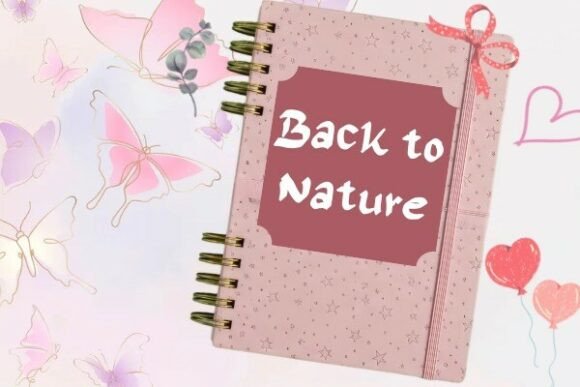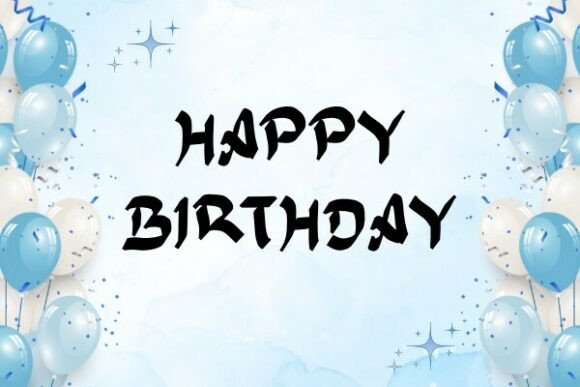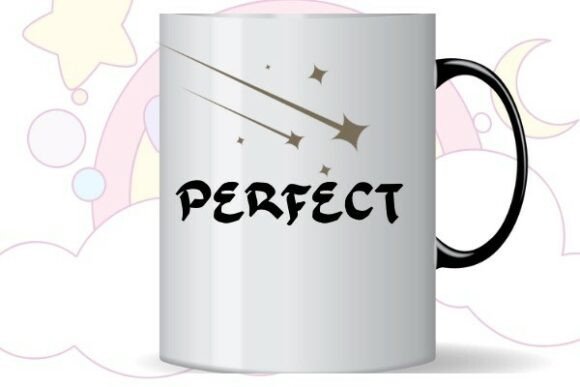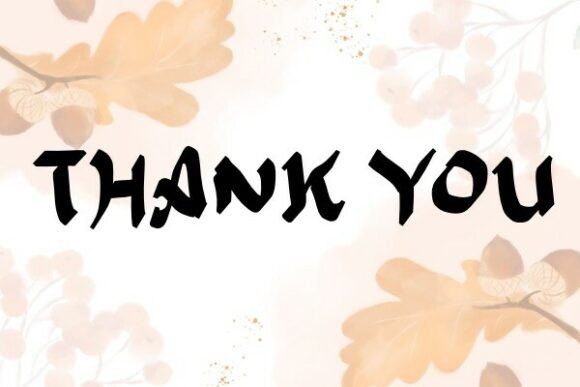
The Perfect Blend of Creativity and Style: Unveiling the Brownie Font
Have you ever found yourself staring at a blank page, a canvas waiting to be filled with life and imagination? That’s exactly where the magic happens – in the moment when a spark of creativity ignites and your design comes to life. For designers, this moment is a thrill that never gets old, and the right tools can make all the difference.
That’s where the Brownie Font comes in – a unique handwritten font that’s perfect for adding a personal touch to your designs. Whether you’re crafting stylish T-shirts, personalized mugs, or heartfelt greeting cards, this distinctive typeface will help you stand out from the crowd. With its charming charm and versatility, the Brownie Font is a valuable asset for any designer looking to take their creations to the next level.
Brownie Font Key Features
- Unique Characteristics: The font features a unique, distressed design with a vintage feel, making it ideal for creative projects and designs.
Brownie Font Review
As a designer, I was excited to dive into the world of Brownie Font. Here’s my honest take on this sans-serif font.
- Unique personality: Brownie Font has a distinct, quirky feel that sets it apart from more traditional sans-serif fonts.
- Legibility: The font is easy to read, even at smaller sizes, making it perfect for body text and captions.
- Cool vibe: Brownie Font’s informal, casual feel is perfect for creative projects, branding, and design that requires a relaxed tone.
- Limited versatility: Brownie Font may not be the best choice for formal or professional projects, as it can come across as too casual.
- Lack of bold weights: The font’s limited weight range may not be suitable for headings or titles that require more emphasis.
- Not suitable for long blocks of text: The font’s quirky feel can start to feel overwhelming when used for extended periods of time.
Brownie Font is a fun, creative font that’s perfect for projects that require a relaxed, casual vibe. While it may not be suitable for all projects, it’s a great choice for designers looking to add some personality to their work. With its unique feel and excellent legibility, Brownie Font is definitely worth considering for your next design project.
The Brownie Font is a versatile font that can be used for a variety of purposes, including:
- Food blogs and recipes.
- Cookbooks and menus.
- Wedding invitations and decorations.
- Home decor and design.
Tips for Getting the Most Out of Brownie Font
Here are some tips for getting the most out of Brownie Font:
- Use it in conjunction with other playful fonts for a whimsical look.
- Pair it with bold colors and textures for a fun and lively atmosphere.
- Use it for titles and headings to add
Alternatives to Brownie Font
Brownie Font is a distressed font often used for its vintage and edgy feel. However, designers may look for alternatives that offer a similar aesthetic or unique characteristics. Here are a few options:
1. Fontdiner Script
Fontdiner Script is a distressed script font that resembles handwritten text. It’s ideal for designs that require a nostalgic or retro feel. In comparison to Brownie Font, Fontdiner Script has a more fluid and cursive appearance, making it suitable for titles, headings, and other text elements that need a touch of elegance.
2. Rock Salt
Rock Salt is a distressed sans-serif font that features a rough, worn texture. It’s perfect for designs that require a gritty or urban feel. Unlike Brownie Font, Rock Salt has a more minimalist approach, making it suitable for body text, captions, and other elements where a clean, readable font is necessary.